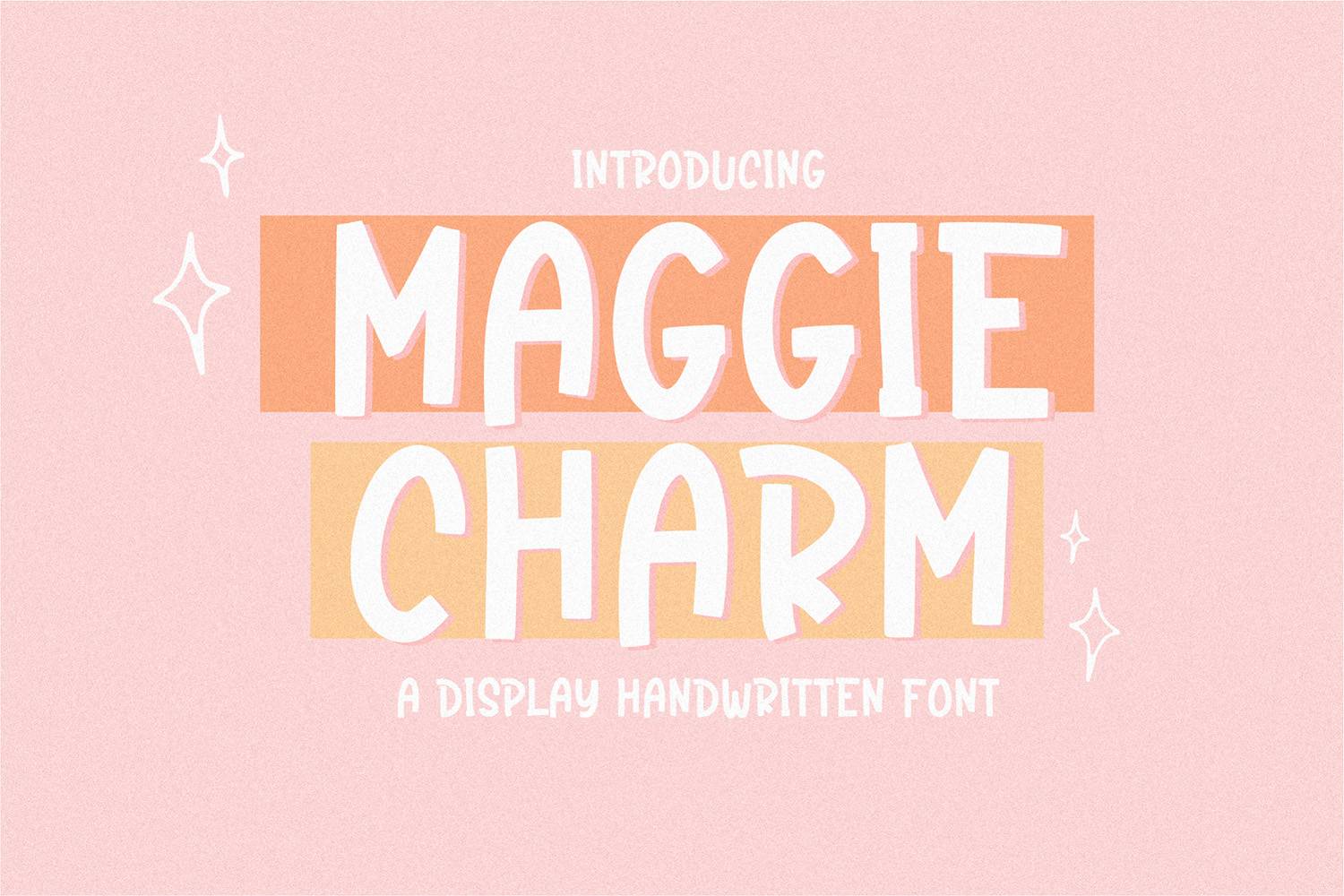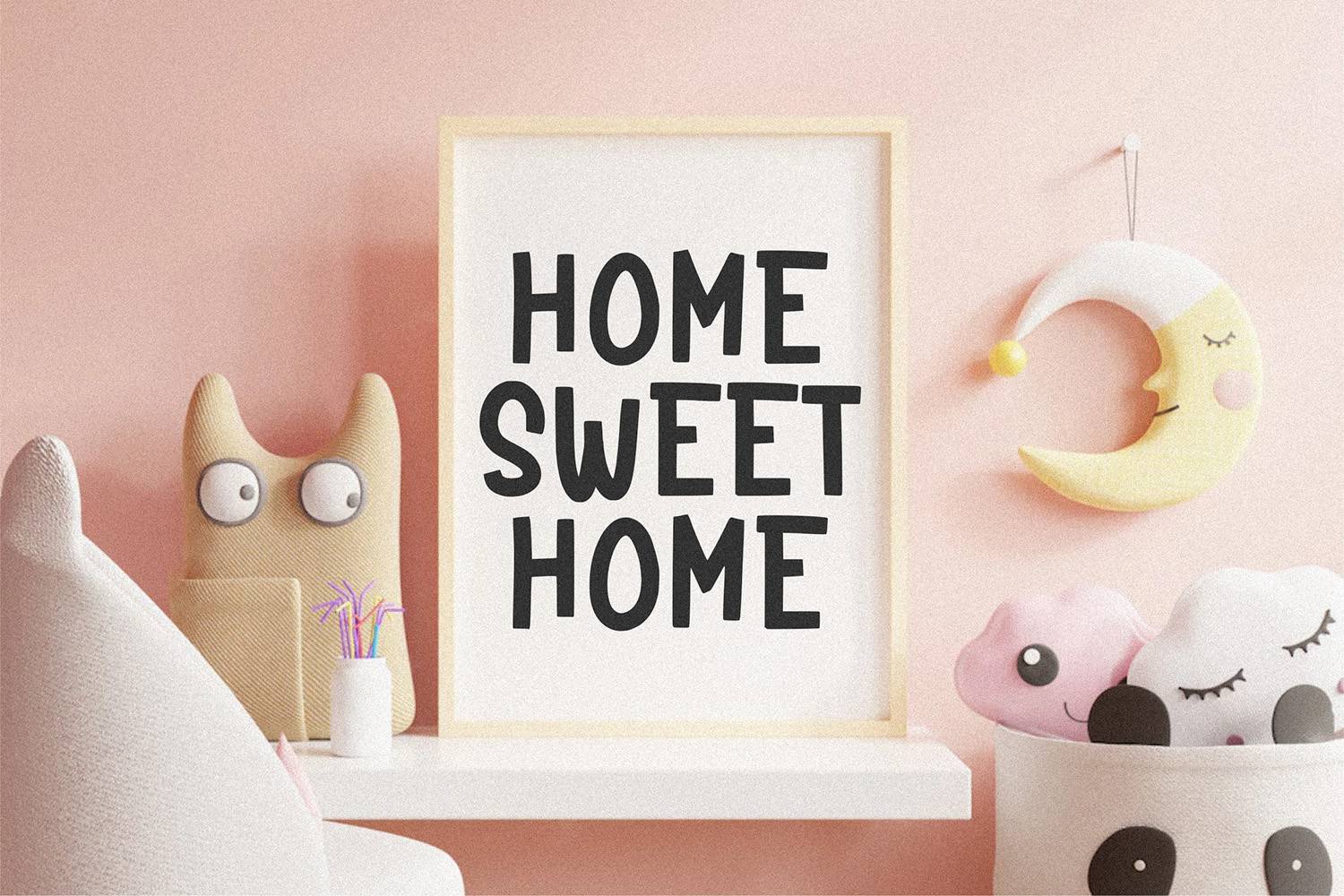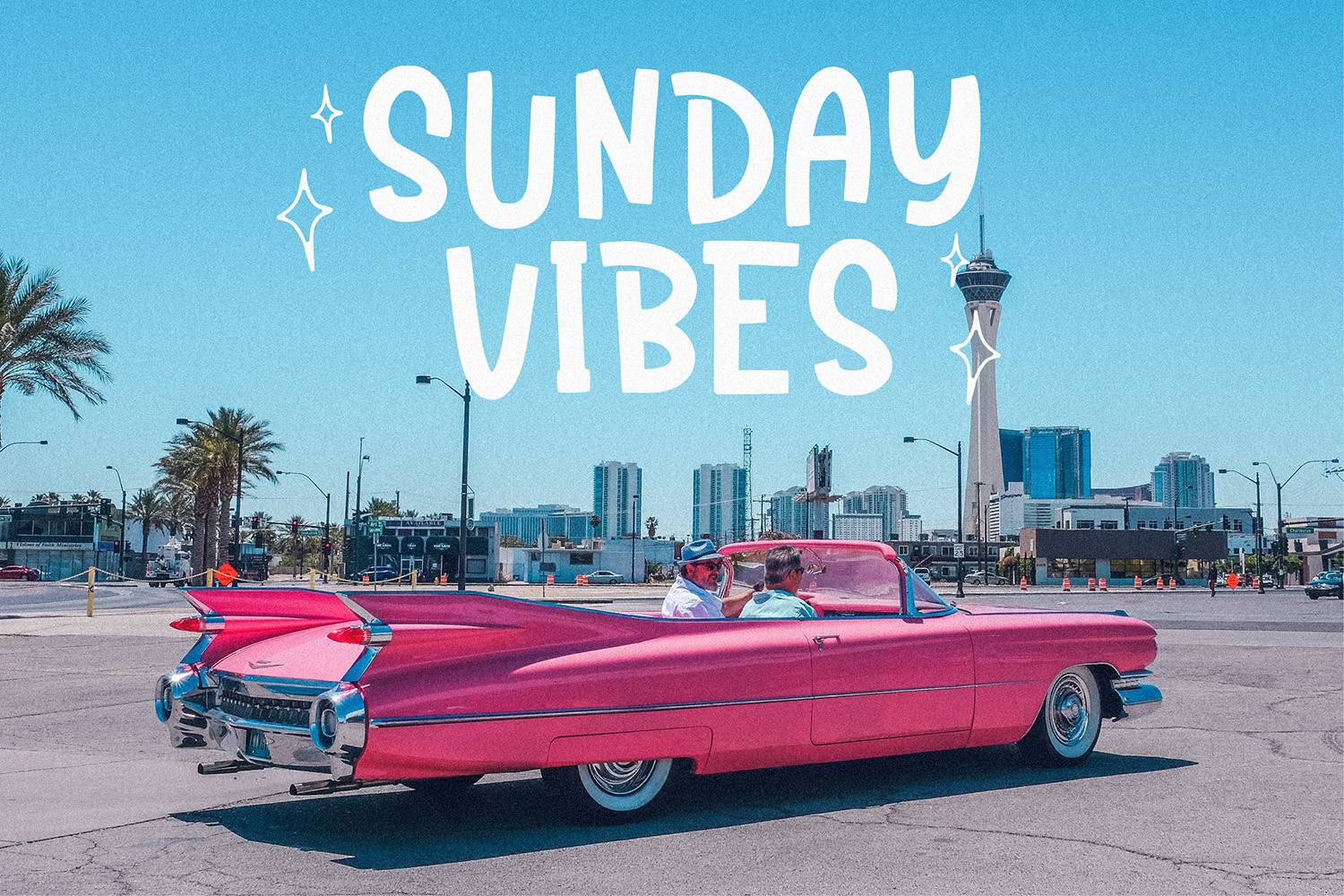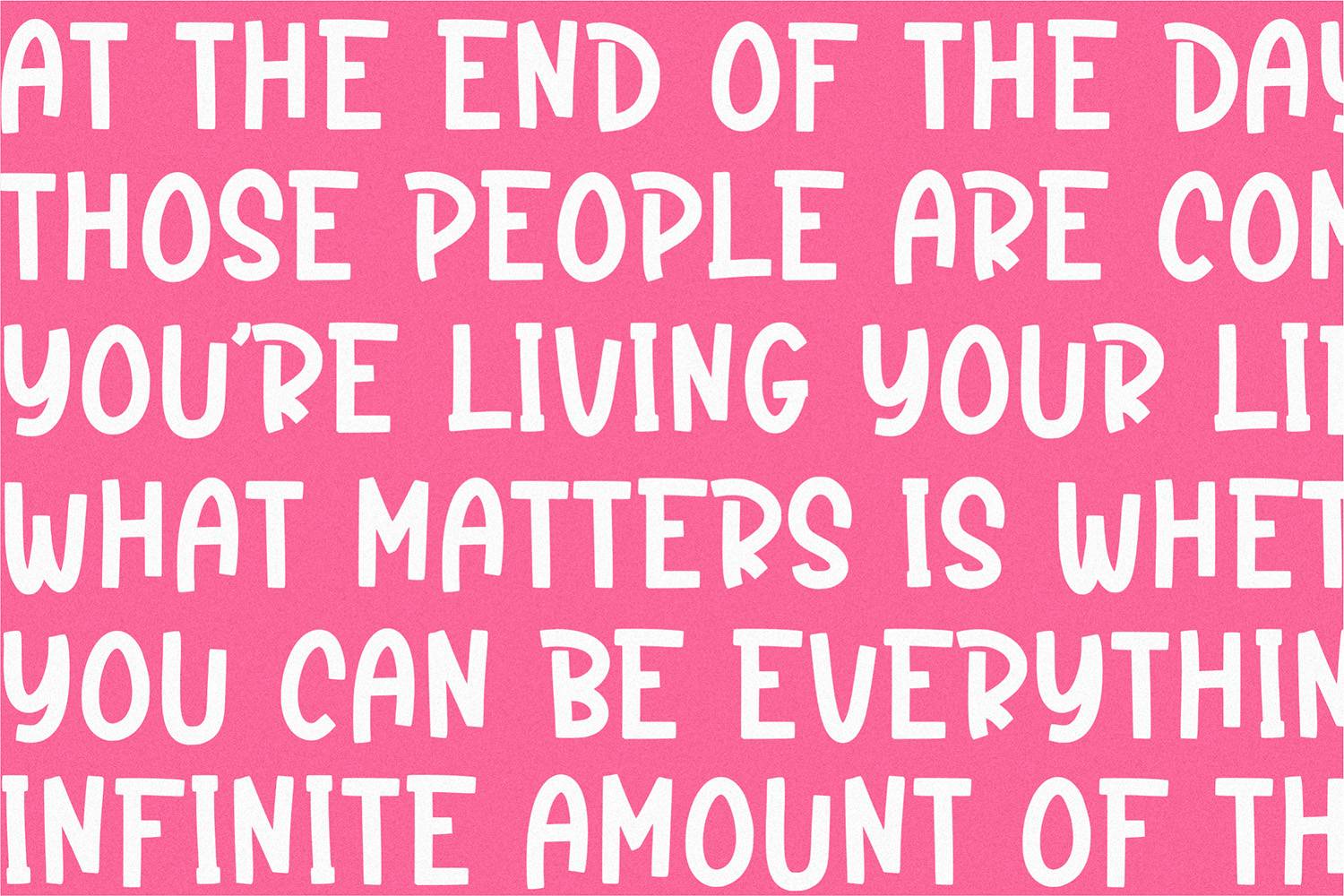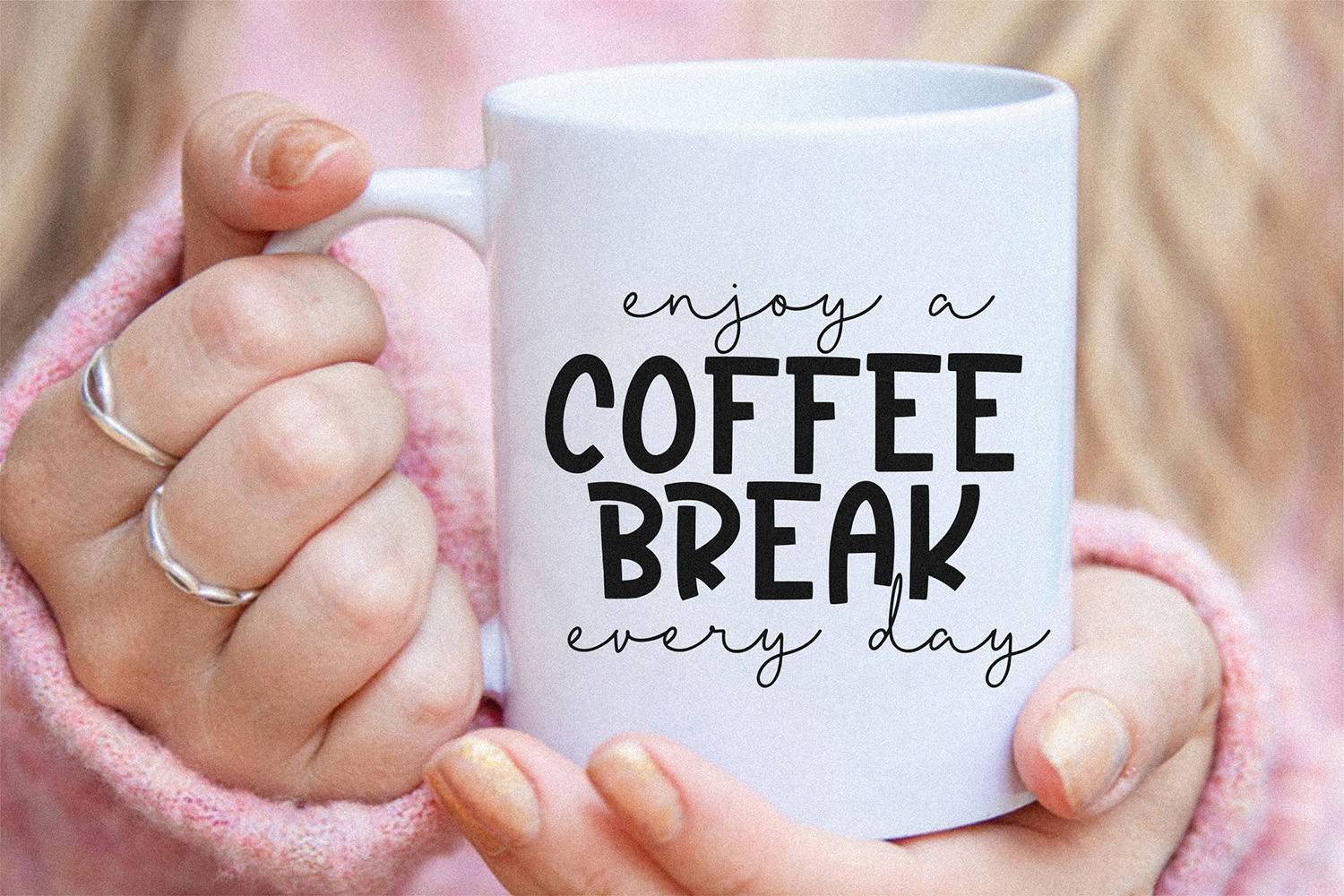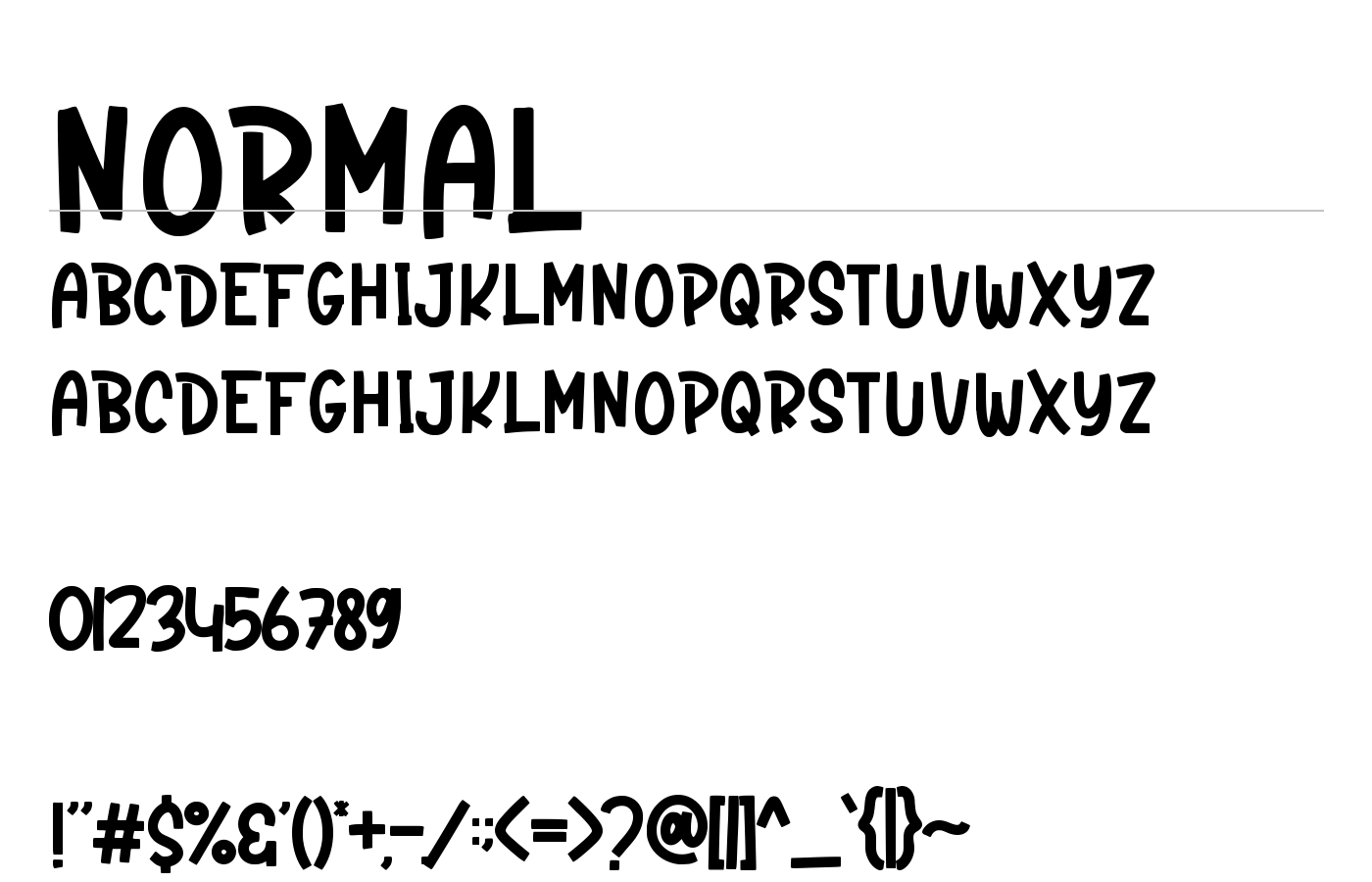
Maggie Charm is a playful and casual sans serif font featuring irregular, hand-drawn letterforms with a friendly and approachable vibe. Its lively strokes and slightly varied shapes give it a charming, informal feel, making it ideal for creative projects, children's content, branding, and any design seeking a warm, personal touch. This font works well for headlines, logos, and packaging where a fun, energetic style is desired.
Maggie Charm Font
About Maggie Charm Font